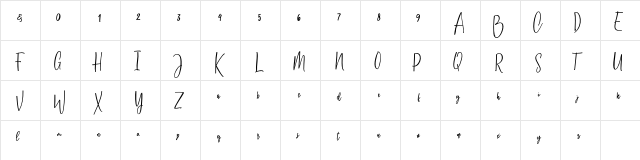
diralia Dafont Regular
Design Context for diralia Dafont Typeface
diralia Dafont is a composed and adaptable typeface that performs quietly and consistently across a wide range of design contexts.